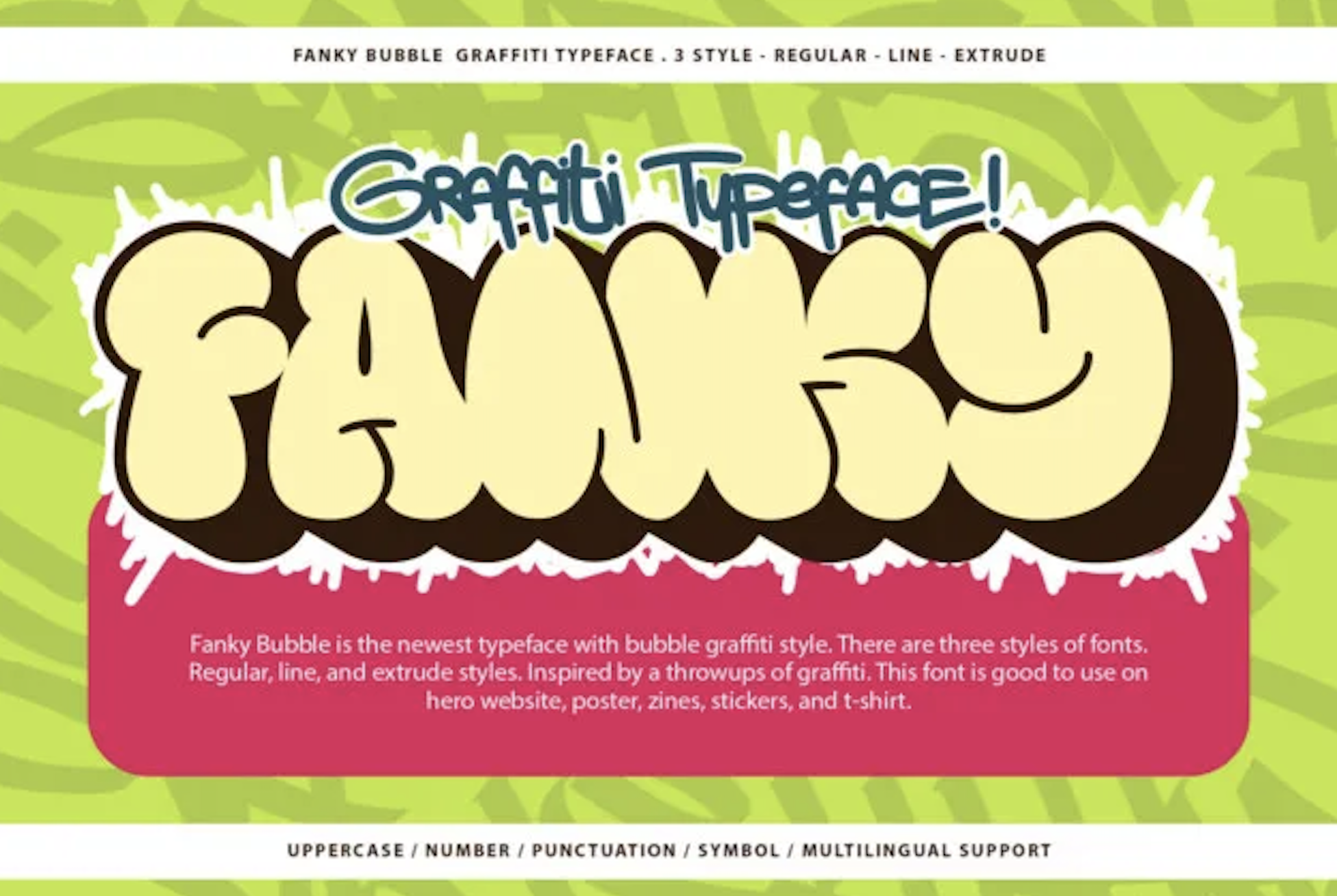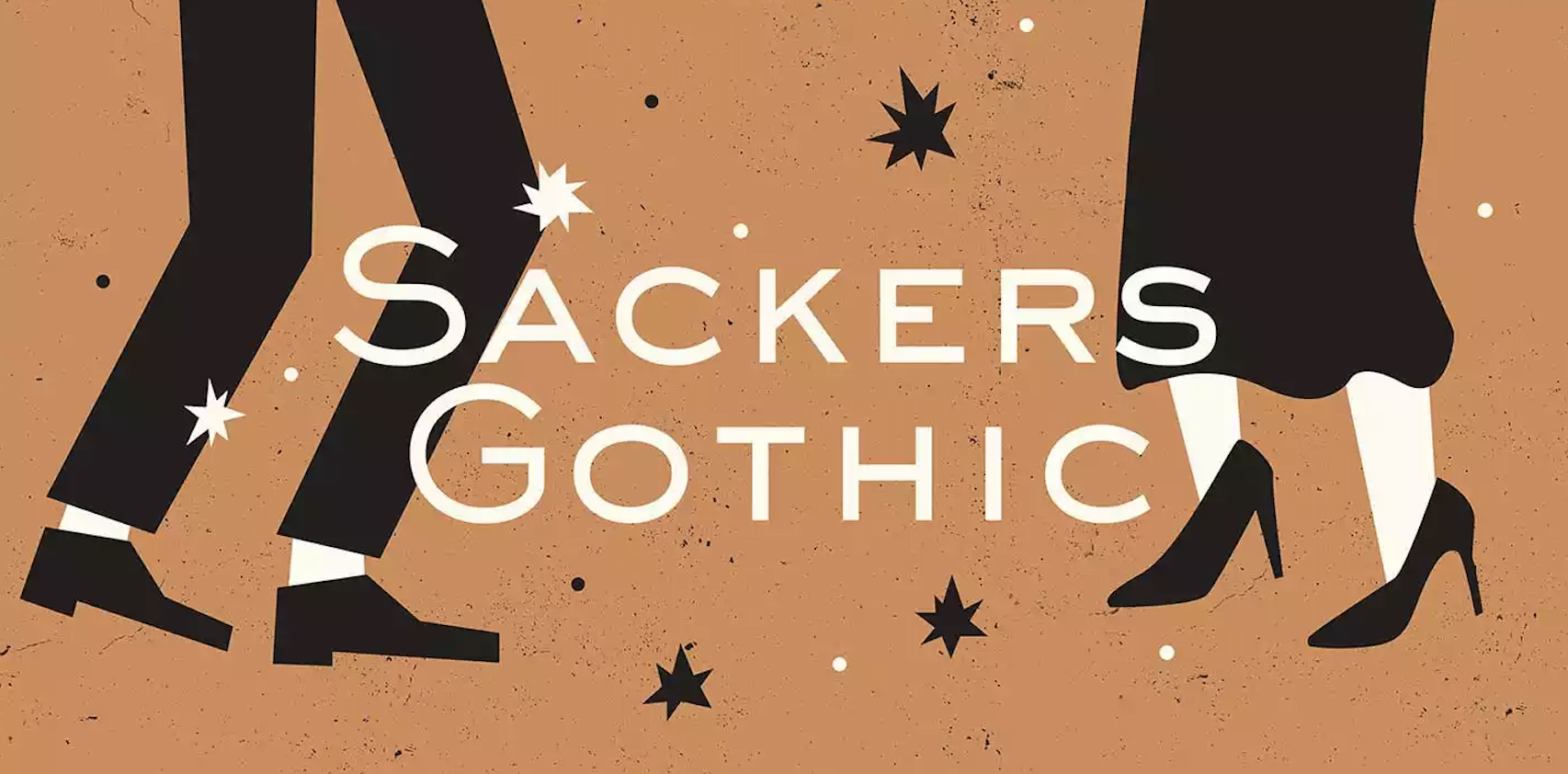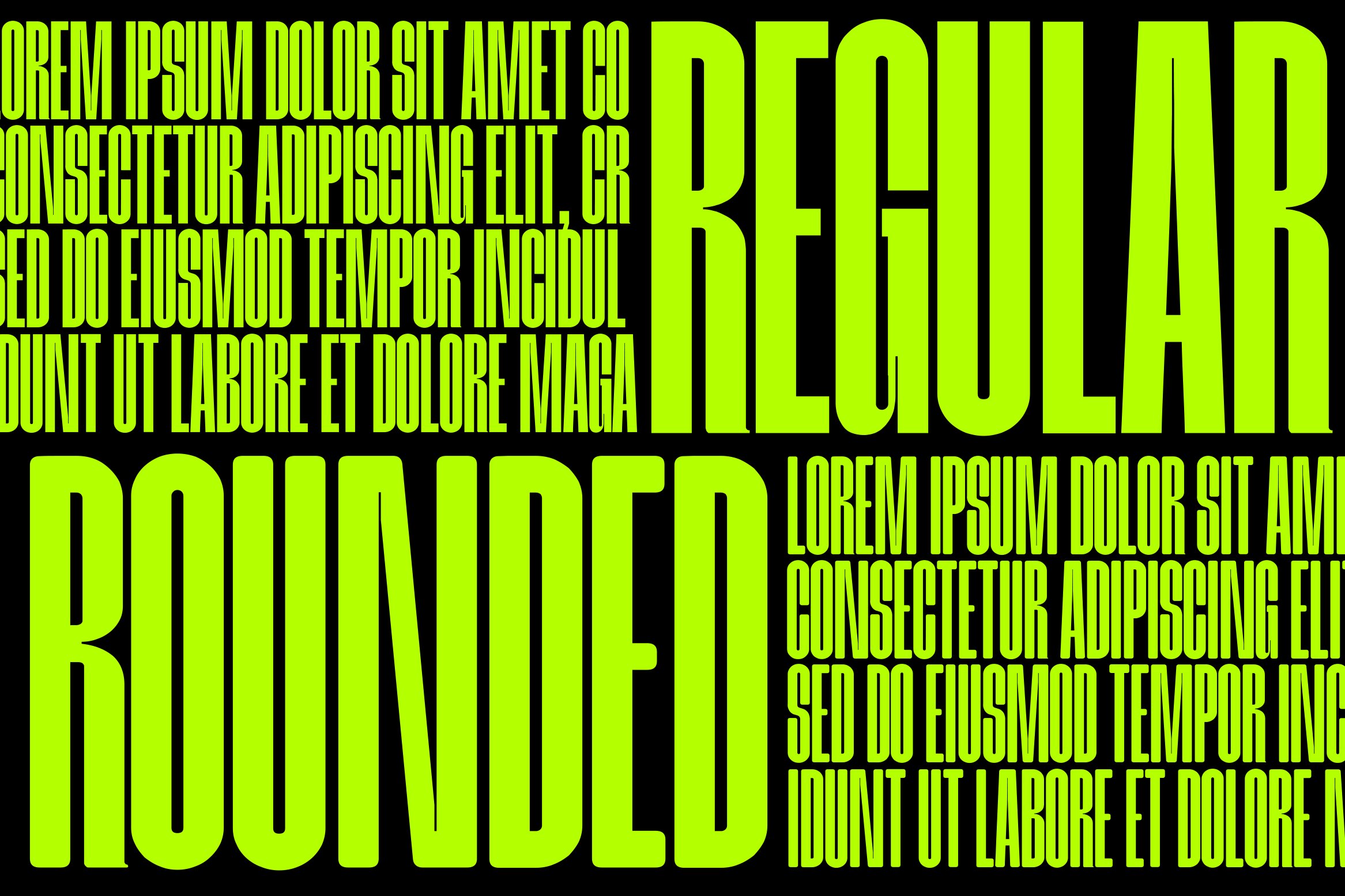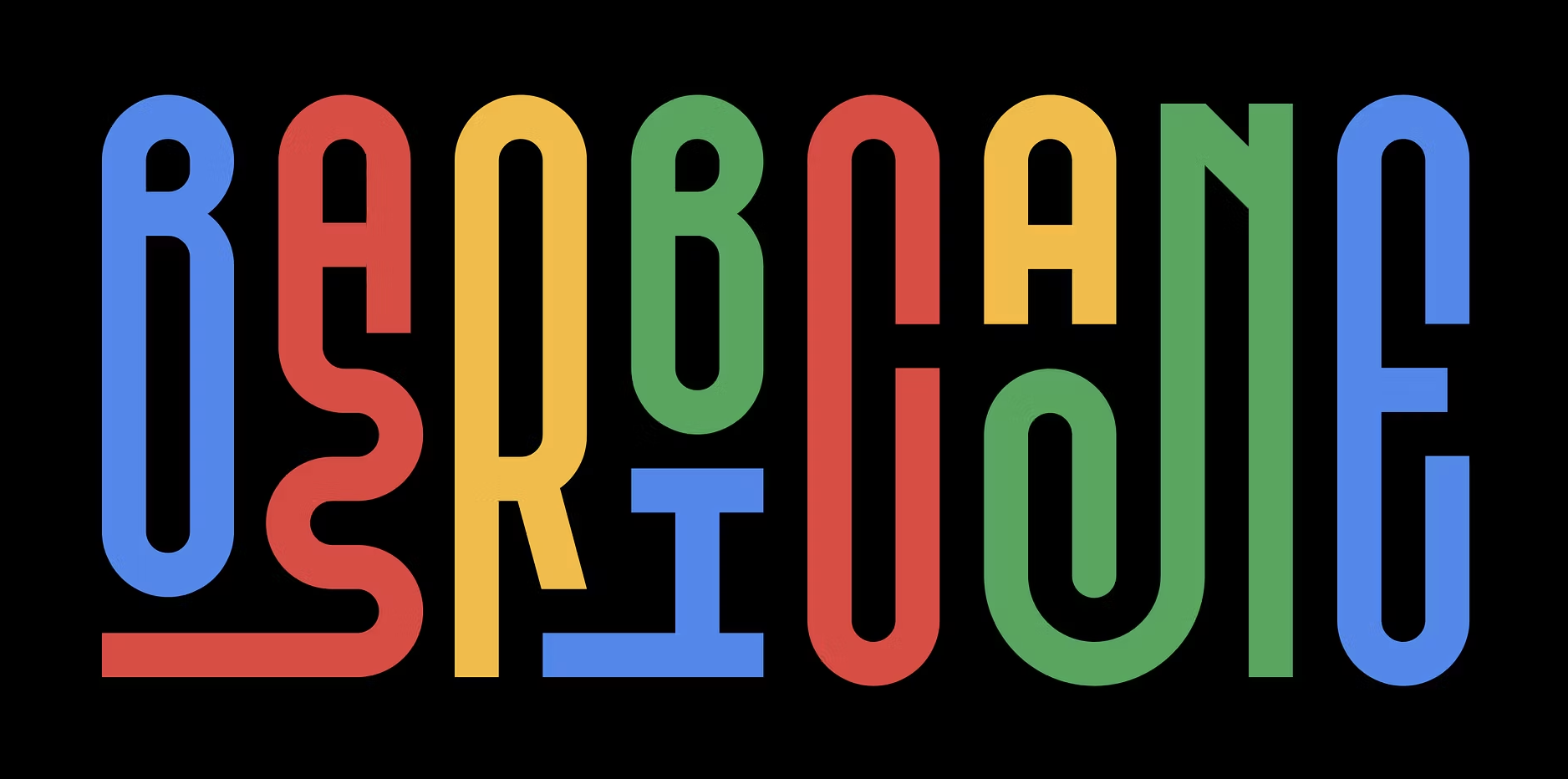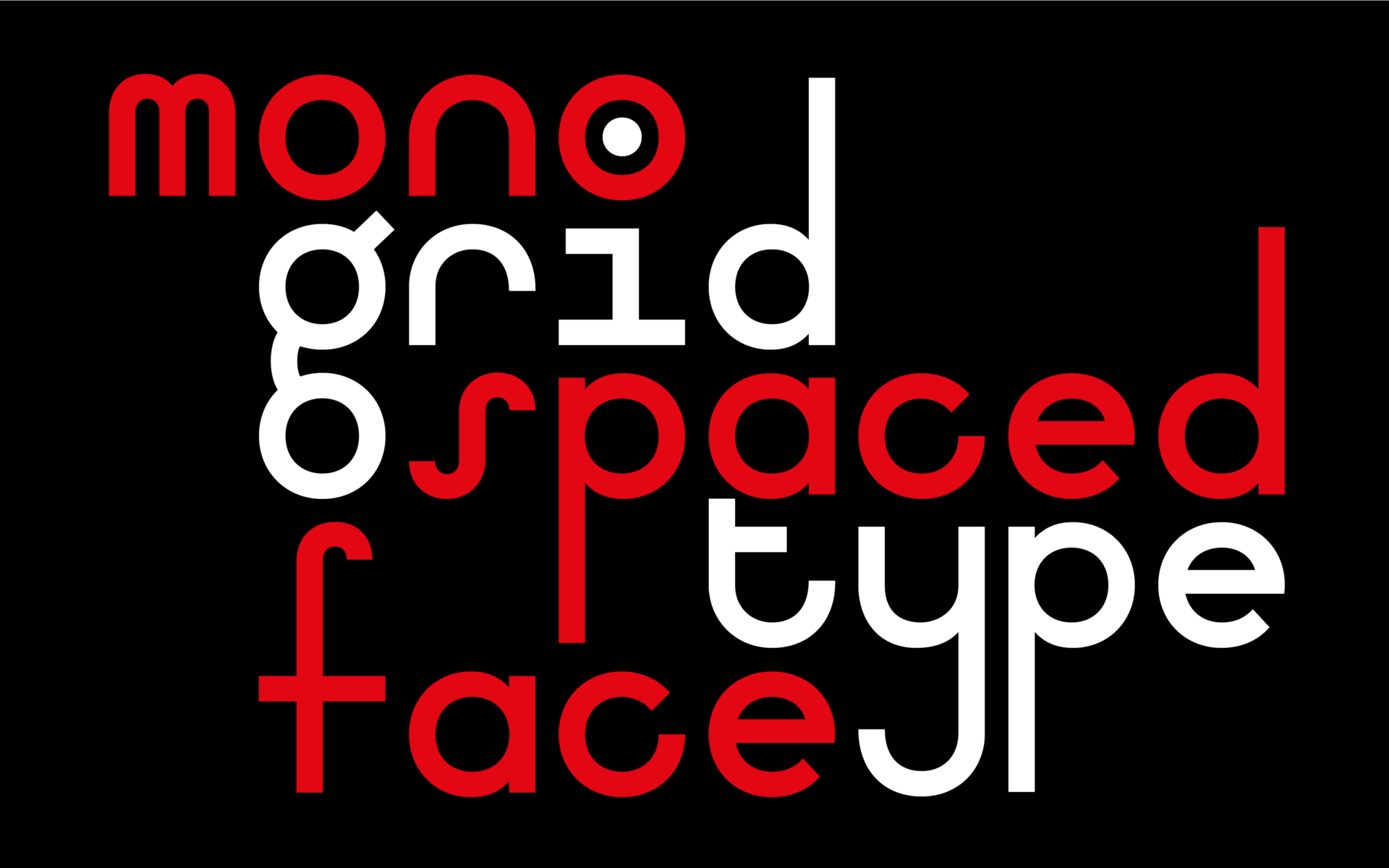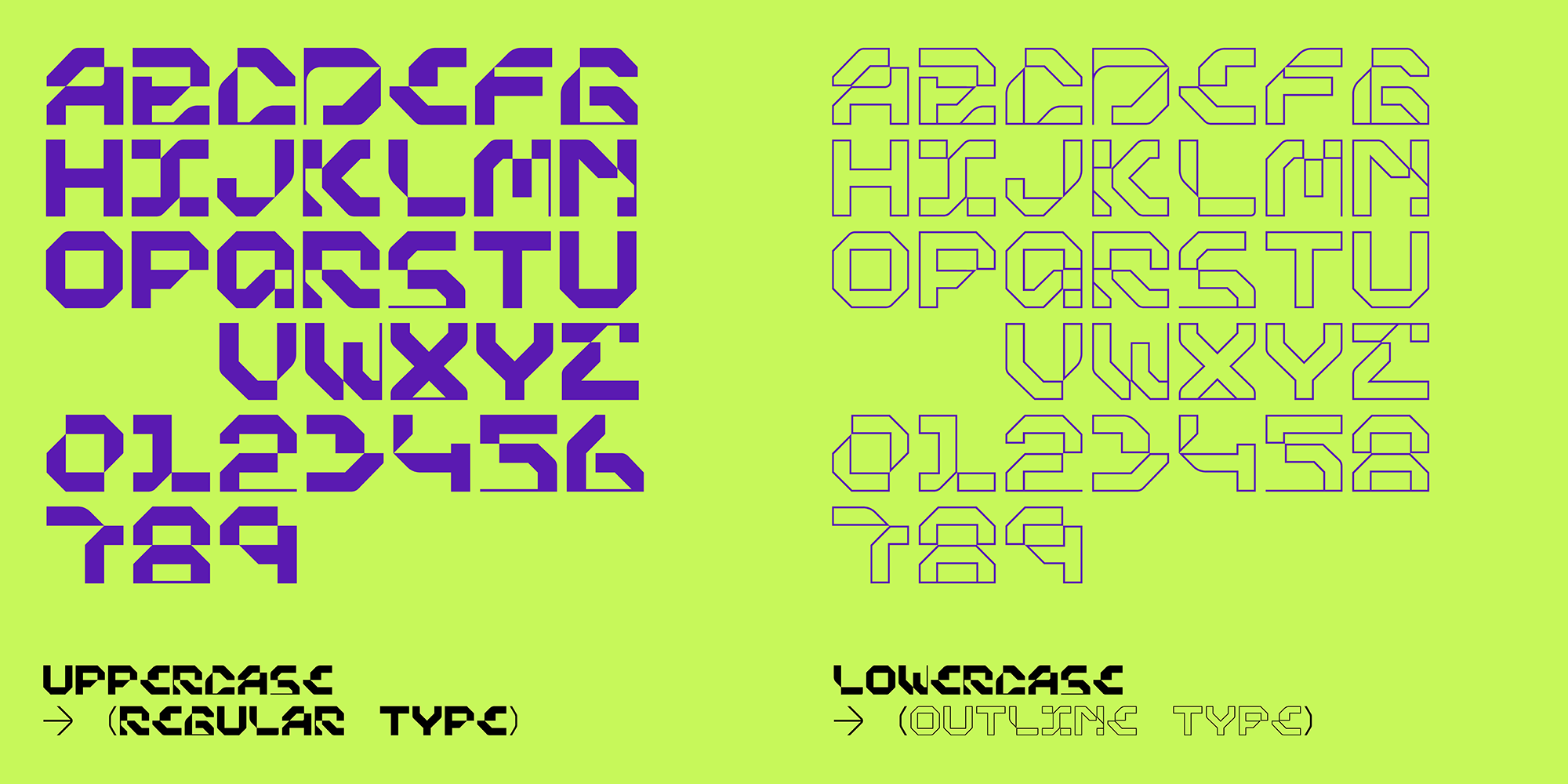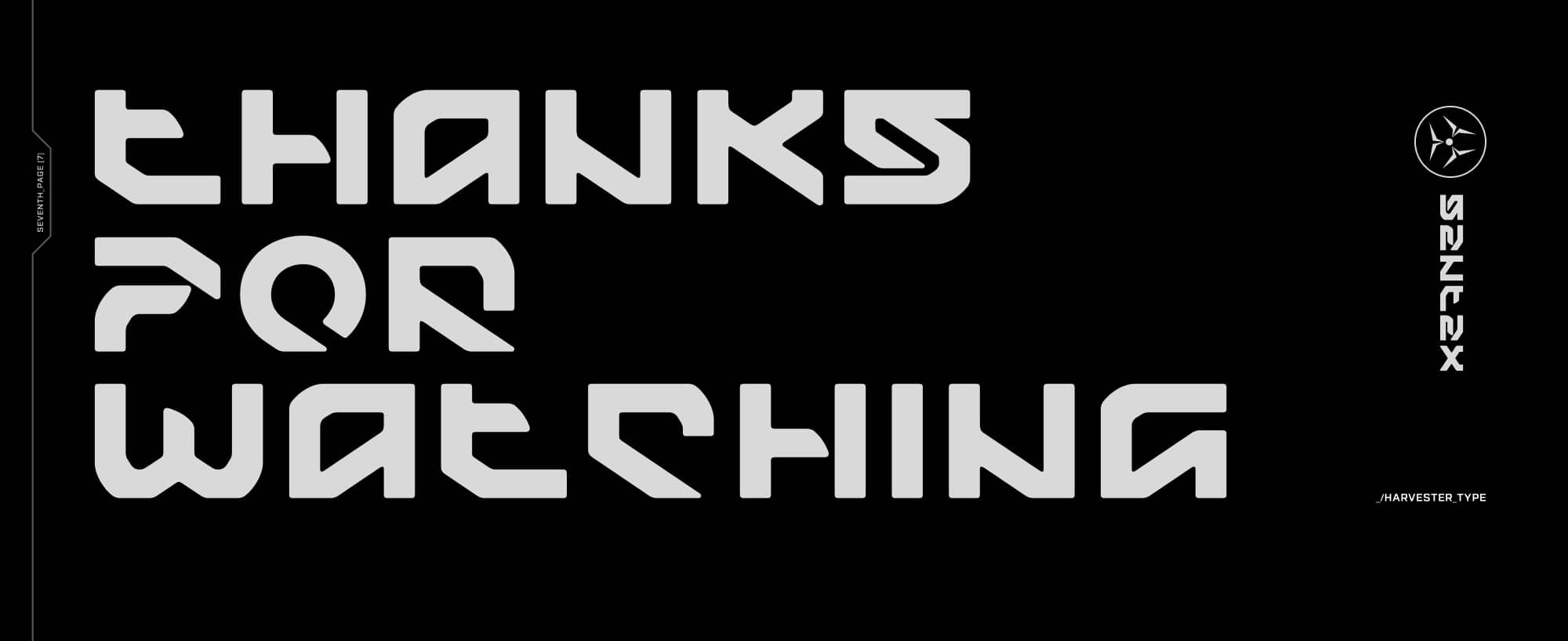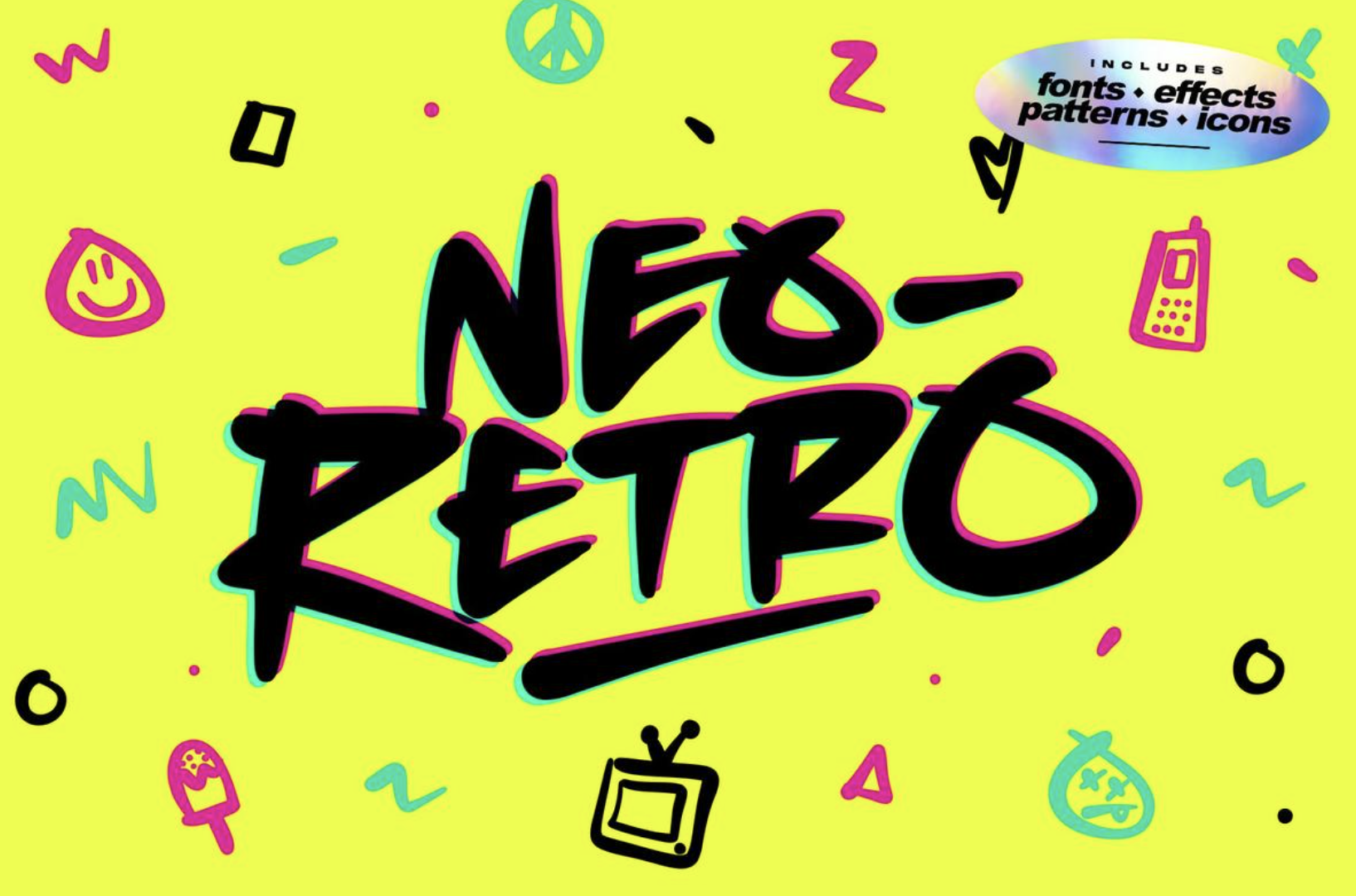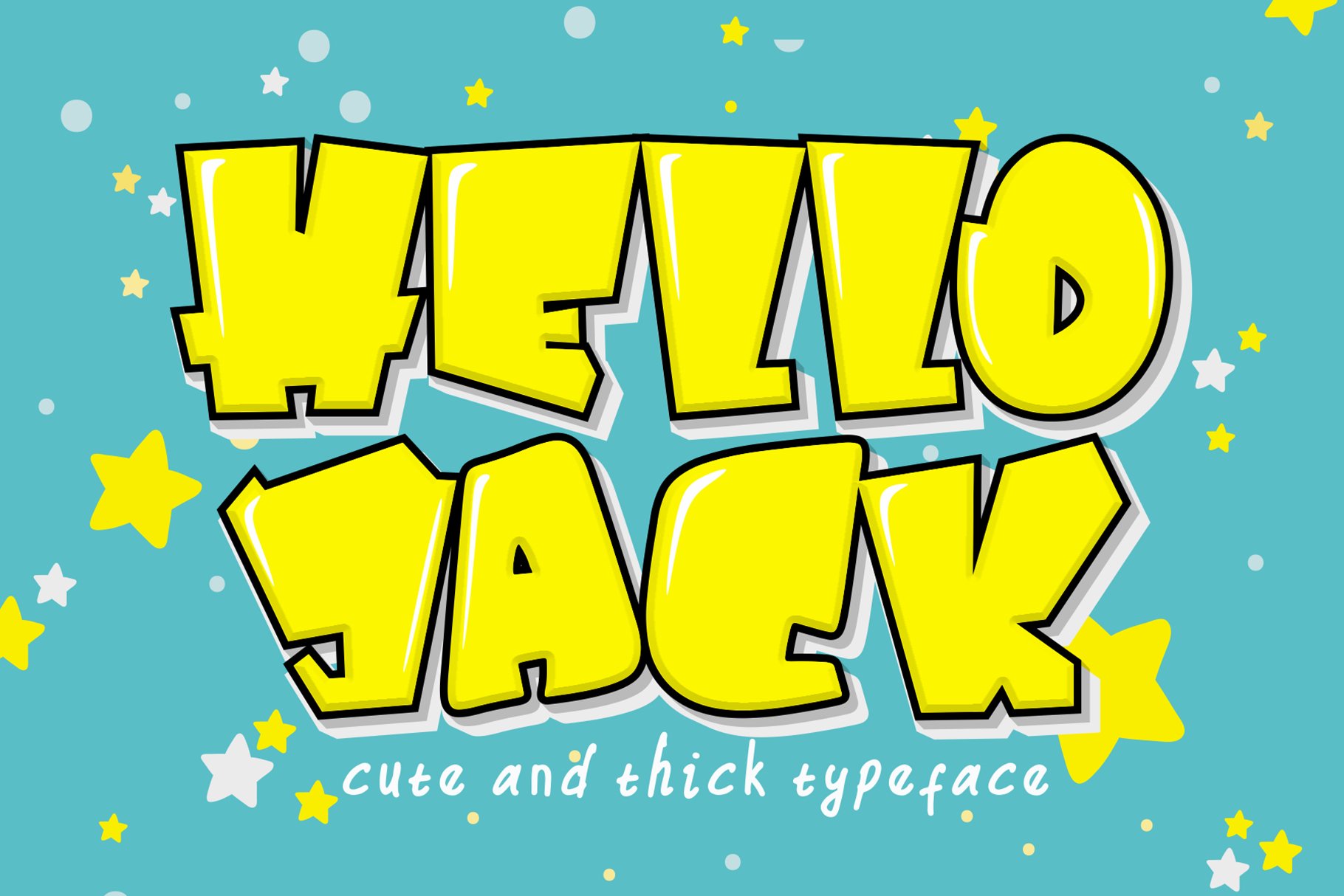
Typography is one of the most important elements that contribute to a logo design and brand. Entering 2025, multiple font trends have surfaced which exhibit modern day aesthetics, technology, and the evolution of brand names. Let us analyze the major font styles that have influenced logo design this year.
Trend #1: Bold Graffiti Fonts
Graffiti style fonts are being widely adopted in logo design due to the rising popularity of street art. More and more brands are incorporating bold and colorful logos which stray away from their conventional formal styles in order to be perceived as youthful, energetic, and unique. The development of new styles in logo design leads to the combination of elaborate bold graffiti fonts with minimalistic logos paired with contemporary color schemes. This blending of styles defines street culture and luxury branding. In 2025, we expect to see new companies adopting these styles in order to stand out with extraordinary stories behind their logos.
Here are some Bold Graffiti Fonts for you to explore.
1. Neo Retro
2. Hello Jack
3. Fanky Bubble
Trend #2: Brush Fonts
Logo design is shifting towards design brush fonts because of their natural, artistic, and handcrafted appeal. These typefaces feature flowing strokes and textured finishes which bringing out the brand's personality .
Businesses that want to communicate a dynamic, expressive, and humanized image often use brush fonts as they instantly add a personal touch. From bold and striking styles to delicate and refined ones, brush fonts always appeal to the eye. It's an undebatable fact that brush styles are more appealing compared to traditional typography. They work well especially for the art, fashion, beauty, and lifestyle industries where creativity guarantees individuality.
Here are some Brush Fonts for you to explore.
1. Pliser
2. Beast Mode
3. Avallon
Trend #3: Modern Elegant Serif
Businesses that are targeting a premium or luxury market tend to prefer serif fonts as they showcase sophistication and power. Such as fashion, beauty, finance, and luxury logos appreciate the level of cultivation that these fonts bring. Unlike traditional serifs, modern elegant serif fonts have more streamlined and simplistic shapes. The combination of these elements make modern brands able to use them without losing their identity.
Here are some Modern Elegant Serif for you to explore.
1. Gibme Goggie
2. Magoa
3. Foller
Trend #4: High-Tech and Futuristic Fonts
With the improvement in AI, blockchain, and other advanced technologies, brands need fonts that exhibit innovation and progress, along with modern design. These fonts are geometric and minimalistic, which perfectly defines professionalism and class, making them a staple for any tech, startup, or futuristic brand.
Here are some High-Tech and Futuristic Fonts for you to explore.
1. Tricorn Mono
2. Sentex
3. Winkell
Trend #5: Unique Sans Serif Font
A modern sans serif with a hint of character, they all have differentiating details in their letterforms. Their modern touch makes them suitable for all brands looking to position themselves as trendy and progressive.
Here are some Unique Sans Serif Font for you to explore.
1. Horse Pro
Source: Horse Pro by Studio Fat Cat
2. Sackers Gothic
Source: Sackers Gothic™ by Monotype
3. Meuga
Souce: Meuga by Ferry Ardana Putra
Trend #6: Round Geometric Font
Fonts with rounded geometric shapes evoke a feeling of nostalgia while also feeling advanced. They are an excellent choice for designing a vintage logo. Their blend of minimalism and geometric shapes make them ageless. Fintech, tech and startup logos tend to use round geometric fonts like Atomed, SK Barbicane and Mono To Go because they suggest innovation, trustworthiness, and friendliness.
Here are some Round Geometric Font for you to explore.
1. Atomed
Source: Atomed by Jadatype2. SK Barbicane
Source: SK Barbicane by Salih Kizilkaya
3. Mono To Go
Choosing the Right Font for Your Brand
Choosing the right font is crucial for building a strong brand identity. It doesn’t matter if you like sleek modern designs, classic serifs, cute fonts or striking graffiti styles because fonts help convey your brand’s persona. The identity of your brand is easier to recall and distinguish when the fonts you use are in alignment with the goals of your business.